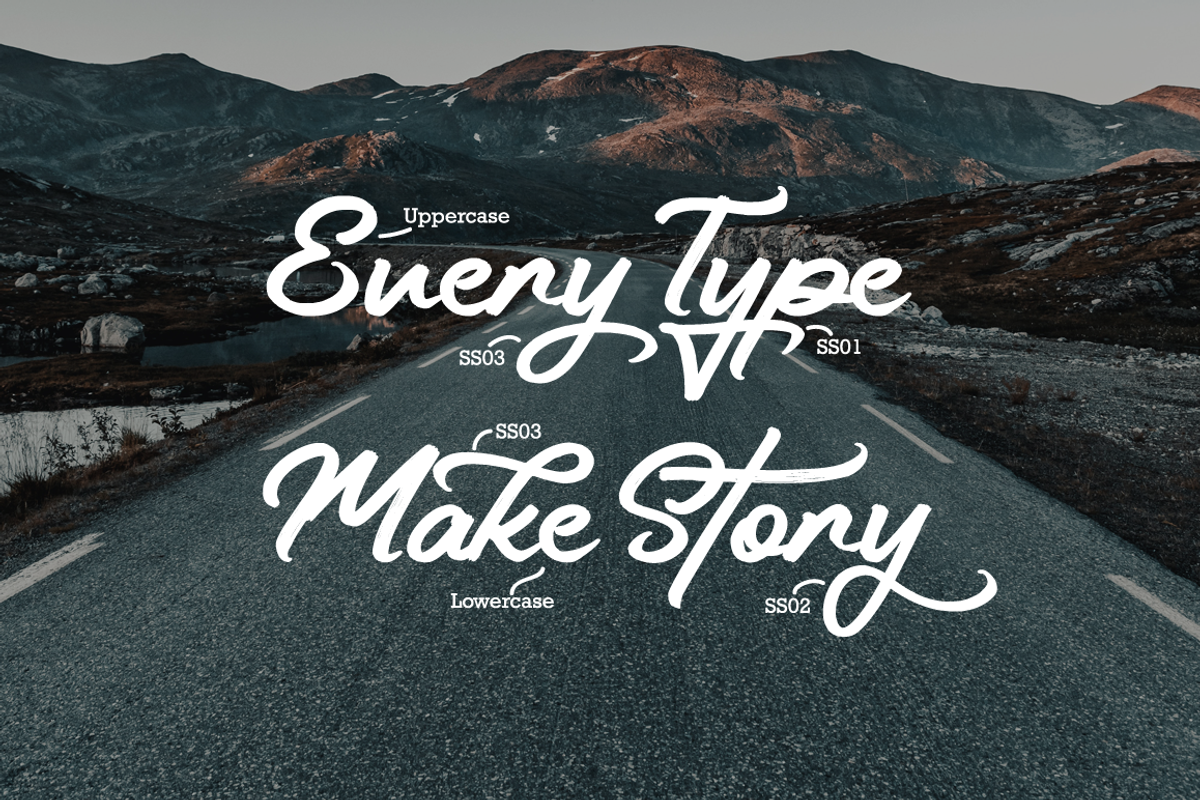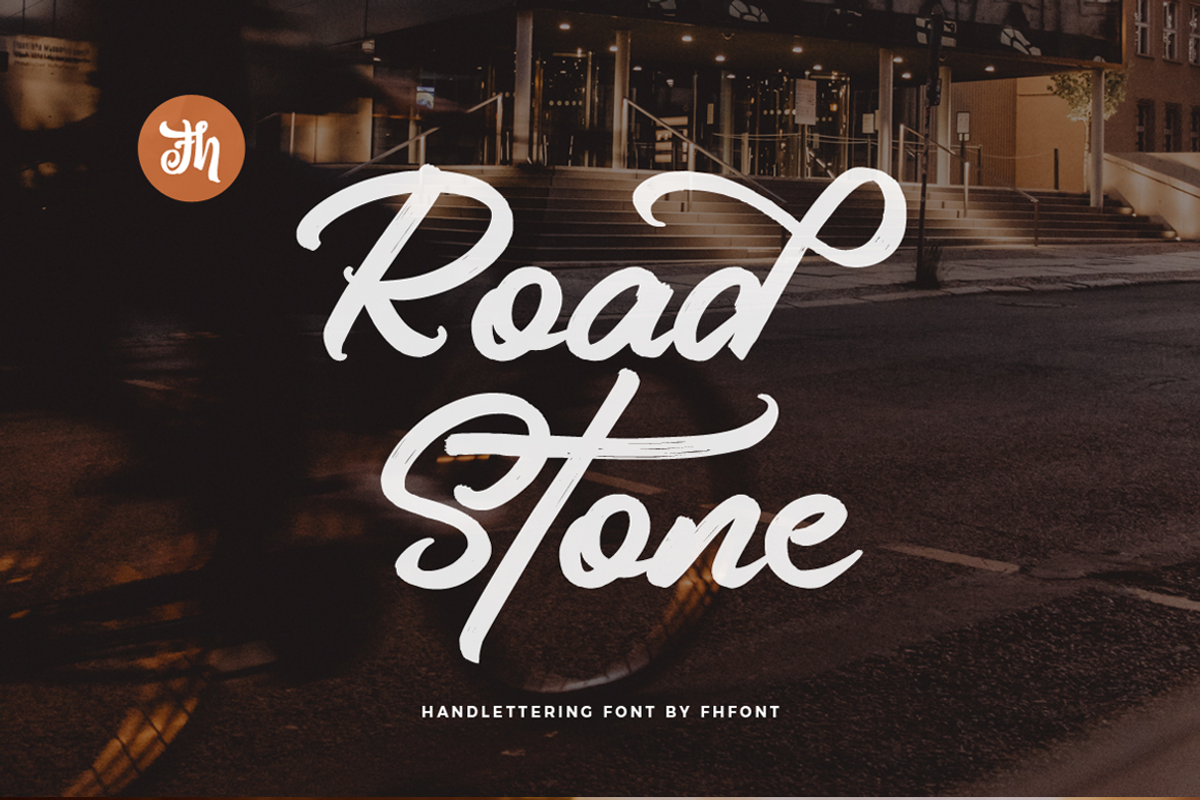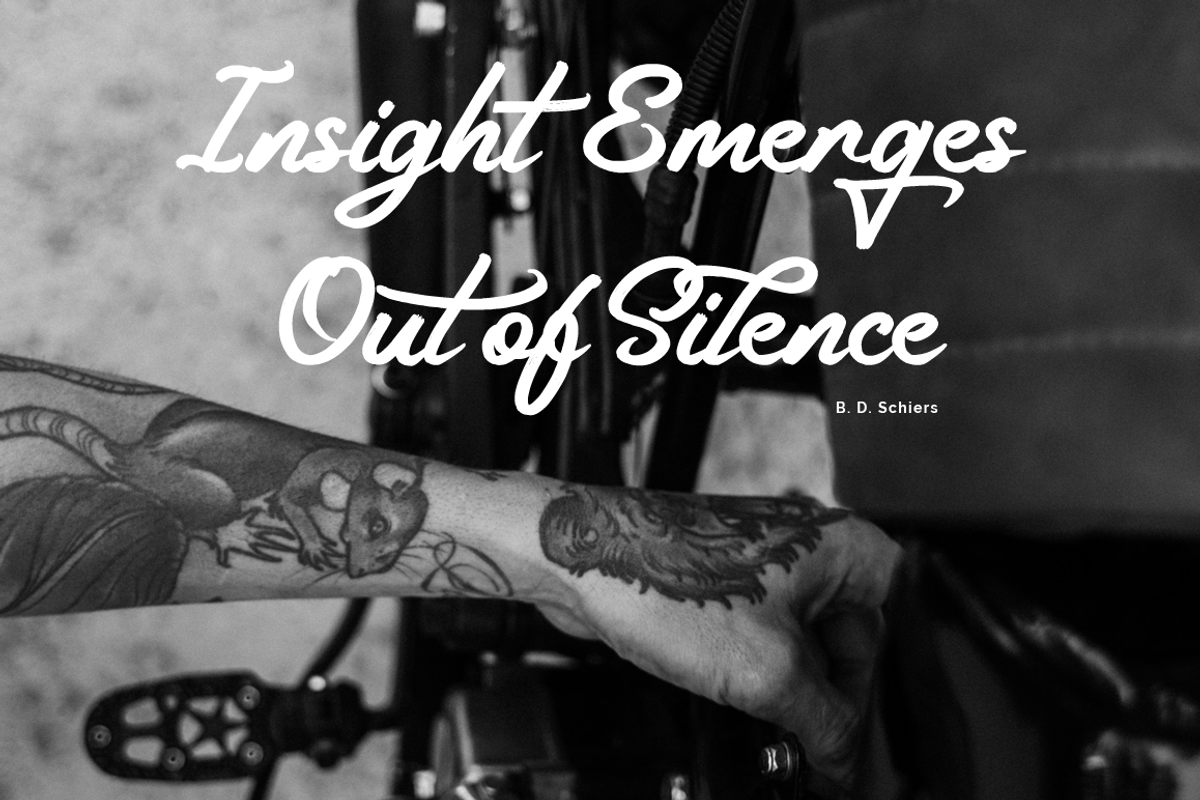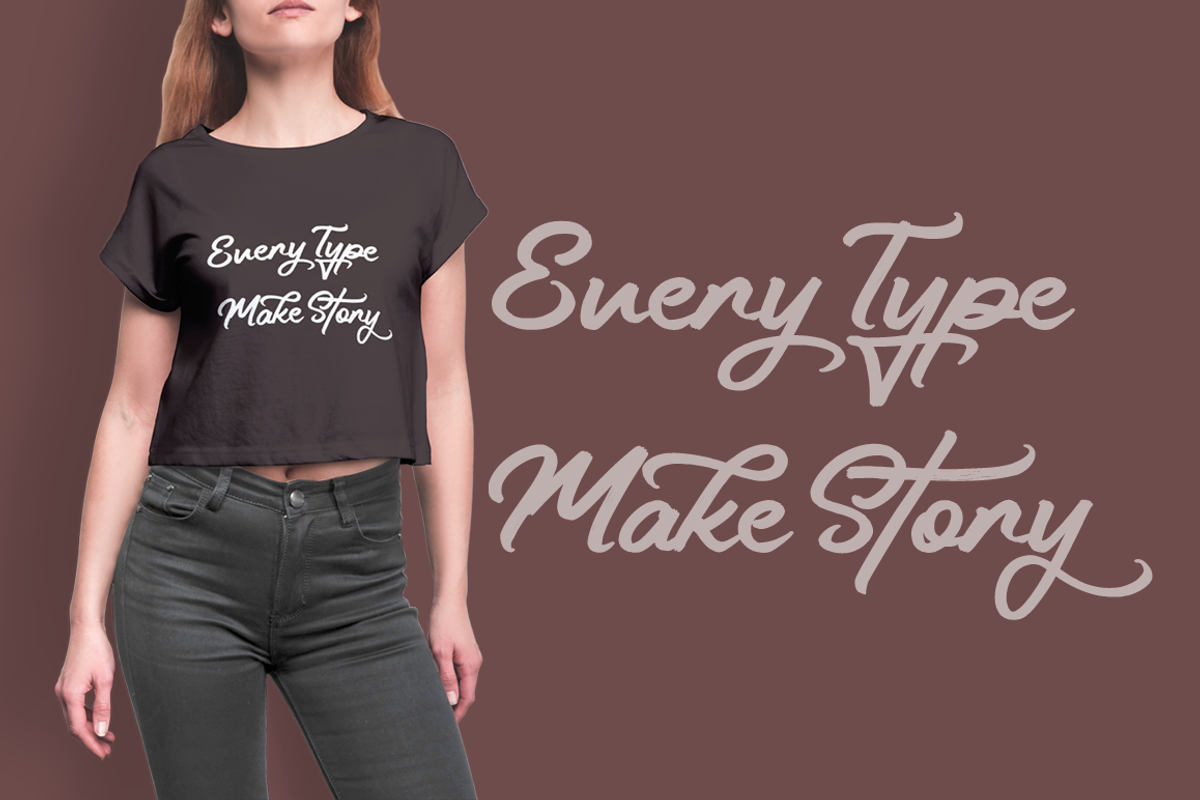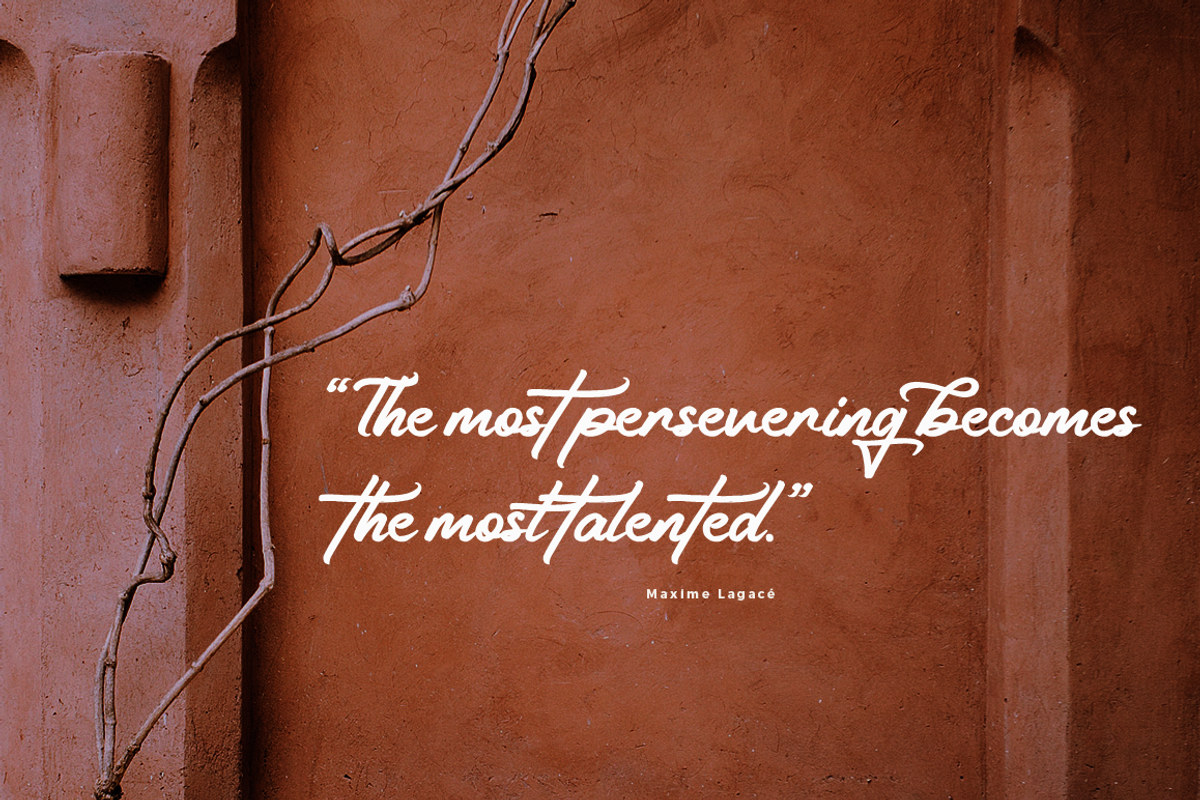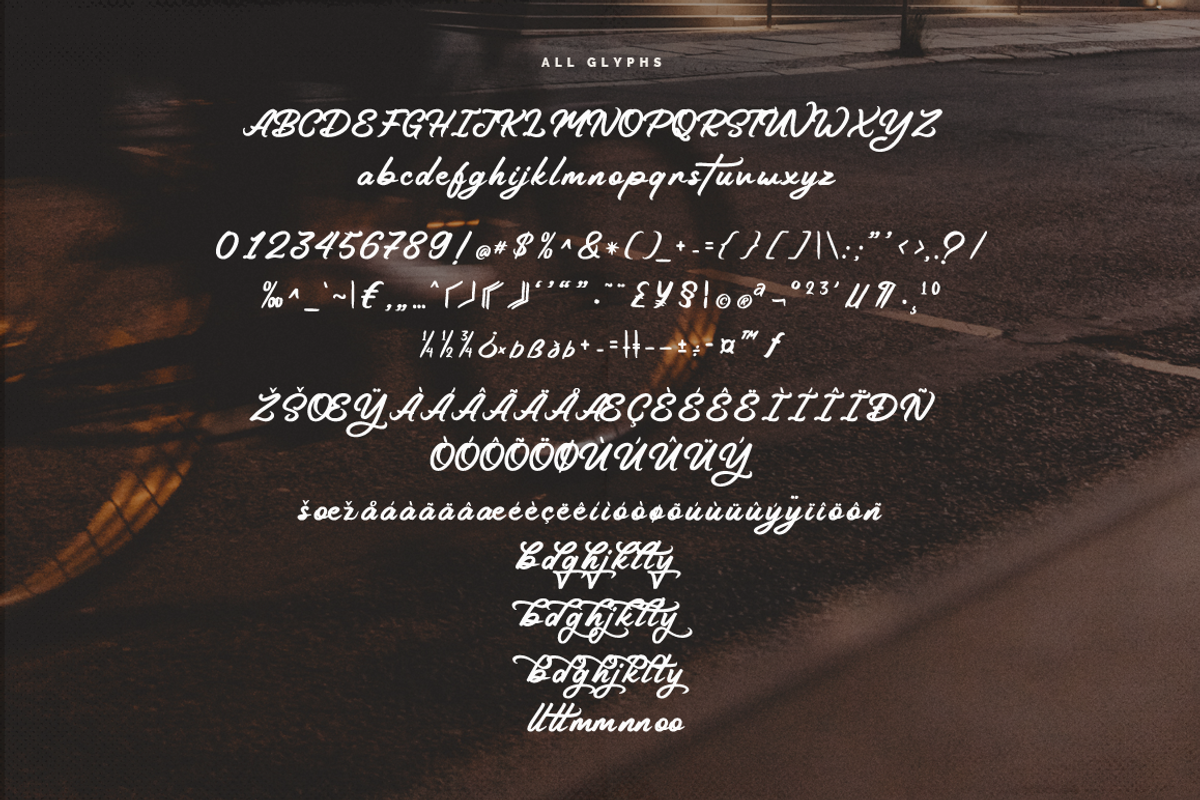
Road Stone - Handlettering Font
Road Stone is script font with handlettering vintage brush style, with opentype feature include of the font. Suitable for design, element design, wedding, event, t-shirt, logo, badges, sticker, and awesome work, etc...
Feature Of The Font:
All Standard Character, Symbol, Multilanguage, Ligature, Stylistic Set, and Swashes.
Unique style fonts